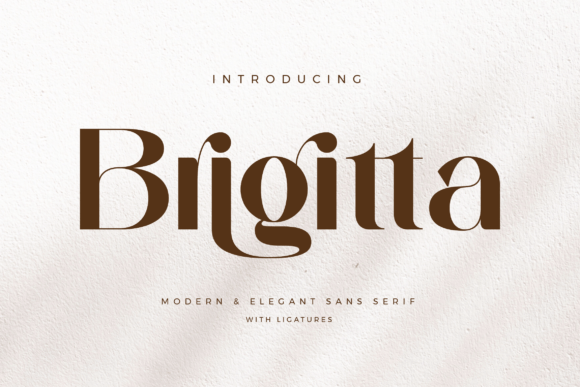
The Designer’s Delight: A Deep Dive into Brigitta Font
I’ll never forget the time I was working on a branding project for a luxury beauty client. I had spent hours crafting the perfect logo, but something was off. The font I had chosen just wasn’t elevating the design to the level I knew it could be. That’s when I stumbled upon Brigitta Font – a game-changing sans font that instantly added a touch of sophistication and elegance to my design. In this article, I’ll share my experience with Brigitta Font, its features, and how to make the most of it in your designs.
An Honest Review of Brigitta Font
What I Love About Brigitta Font
- ✨ Clean and Minimalist Aesthetic: Brigitta Font is inspired by the famous minimalist logo, making it perfect for designers who love clean lines and simplicity.
- ✅ High Versatility: This font is suitable for a wide range of design projects, including templates, brochures, videos, advertising branding, logos, invitations, and more.
- 💡 Elegant and Sophisticated: Brigitta Font adds a touch of luxury to any design, making it ideal for beauty, fashion, and lifestyle brands.
While Brigitta Font is an excellent choice for many design projects, there are a few things to keep in mind:
- 🤔 Limited Character Set: Brigitta Font might not have an extensive character set, which could limit its use in certain projects that require a wide range of special characters.
- ⚠️ Not Suitable for Body Text: Due to its minimalist nature, Brigitta Font might not be the best choice for body text, especially in smaller font sizes.
- Experiment with OpenType features, such as stylistic alternates, to add visual interest to your text.
- Explore the glyphs panel to access additional characters and OpenType features.
The Story Behind Brigitta Font
Brigitta Font was inspired by the famous minimalist logo, which has become synonymous with luxury and sophistication. The font’s creator aimed to distill the essence of this iconic logo into a versatile and elegant typeface. The result is Brigitta Font, a sans font that embodies the principles of minimalism and clean design.
| What is Brigitta Font best suited for? | Brigitta Font is ideal for designing templates, brochures, videos, advertising branding, logos, invitations, and other elegant designs. |
| Can I use Brigitta Font for body text? | While possible, Brigitta Font is better suited for headlines and titles due to its minimalist nature. For body text, consider a more readable font. |
| Is Brigitta Font available in different weights? | Depending on the font package, Brigitta Font might be available in multiple weights. Check the font documentation for details. |